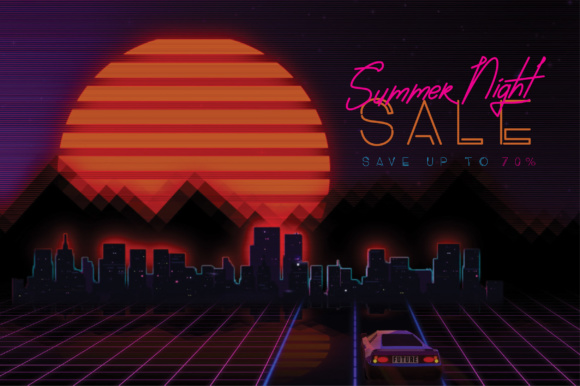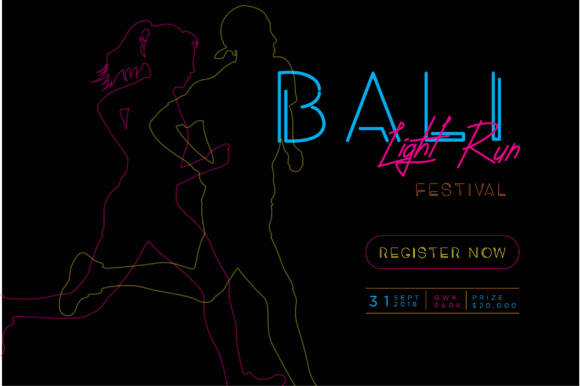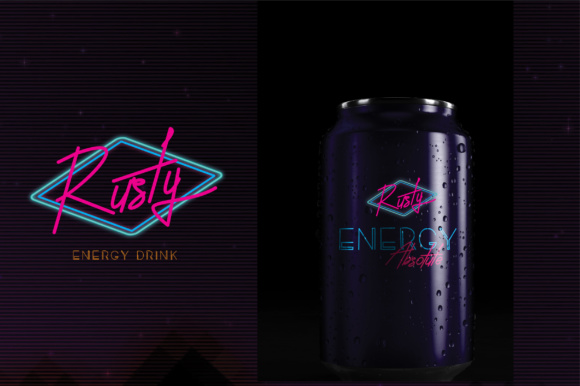
Introduction to Neon Absolute Duo Font
Imagine yourself in a dimly lit, retro-themed bar, surrounded by vibrant neon lights that seem to dance across the walls. The flickering glow of the signs and the mesmerizing rhythm of the music create an electrifying atmosphere that inspires creativity. This is the moment when the Neon Absolute Duo Font comes alive, ready to elevate your design projects to new heights.
As a valuable design resource, Neon Absolute Duo Font offers a unique blend of style and functionality, making it an essential addition to any designer’s toolkit. With its classy, contemporary script and sans fonts, this font duo is perfect for creating stunning visual identities, logos, and branding materials that exude high quality and sophistication.
Key Features of Neon Absolute Duo Font
- High-quality, modern font design suitable for creative projects and design resources.
- Comes in a unique duo format, allowing for creative combinations and variations in designs.
- Features a transparent background, making it easy to overlay on images and other design elements.
- Perfect for use in digital design projects, including web design, graphic design, and UI/UX design.
Honest Review: Neon Absolute Duo Font
I recently came across the Neon Absolute Duo Font, and I must say it’s a fantastic addition to any design resource library. The high quality of this font is immediately apparent, with its sleek and modern aesthetic making it perfect for creative projects.
One of the standout features of this font is its transparent background, which makes it incredibly versatile and easy to use. Whether you’re working on a design project that requires a bold, eye-catching font or something more subtle and understated, Neon Absolute Duo Font is a great choice.
Here are some of the things that work well:
- High-quality design with a modern aesthetic
- Transparent background for easy use
- Perfect for creative projects, from logos to typography
However, there are a few limitations to be aware of: